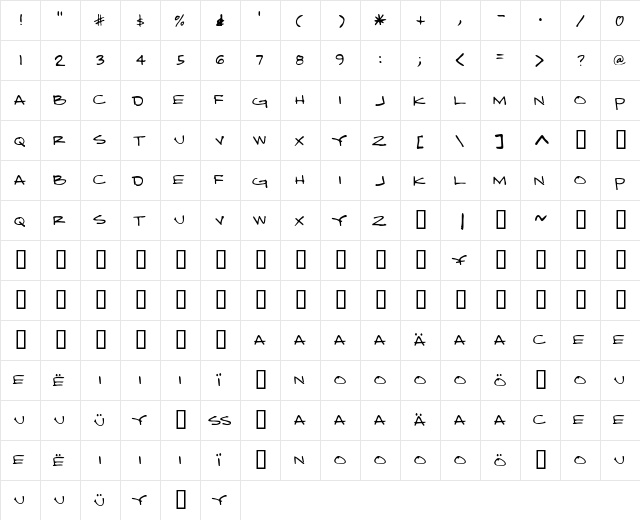
Damned Architect AH Regular
Design Context for Damned Architect AH Typeface
Damned Architect AH is a composed and adaptable typeface that performs quietly and consistently across a wide range of design contexts.